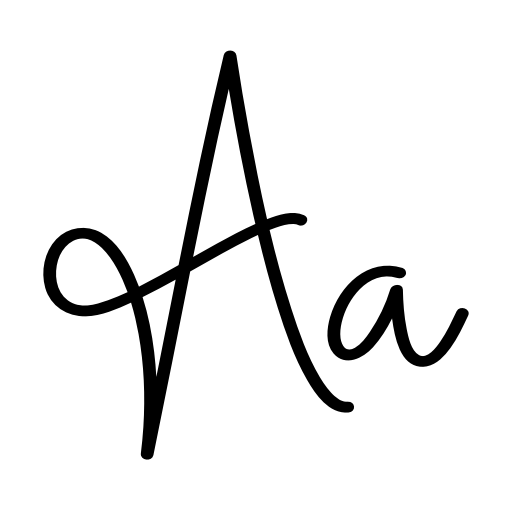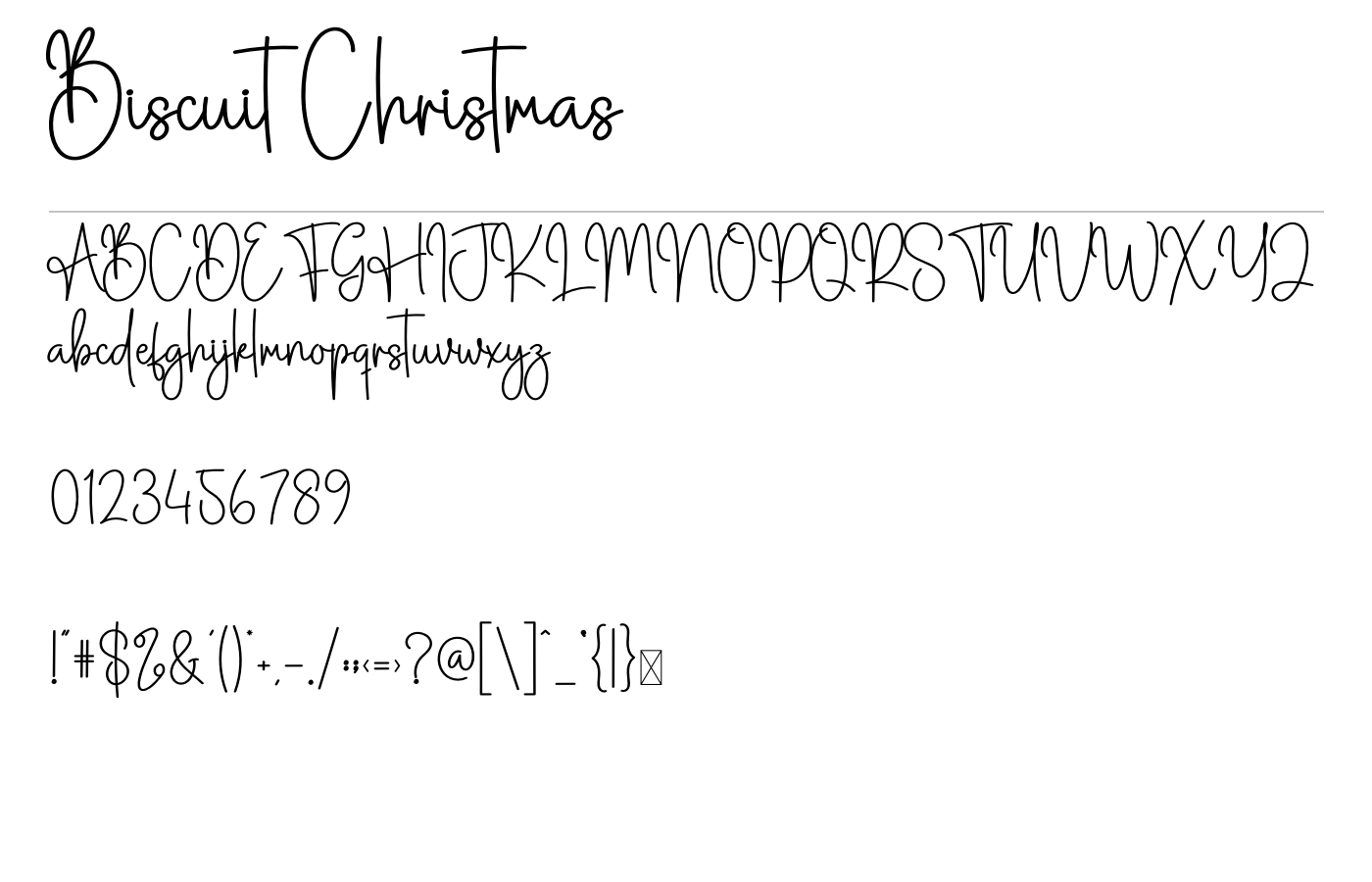
Biscuit Christmas is a playful, hand-drawn script font with tall, slender letterforms and delicate, curvy strokes that give it an airy and whimsical feel. Its light weight and casual style make it perfect for festive, creative projects, adding a friendly and charming touch to holiday cards, invitations, and seasonal branding. This font’s unique letter shapes and elegant flow work well for headlines and decorative text, bringing a joyful and personal vibe to any design.
Biscuit Christmas Font
About Biscuit Christmas Font